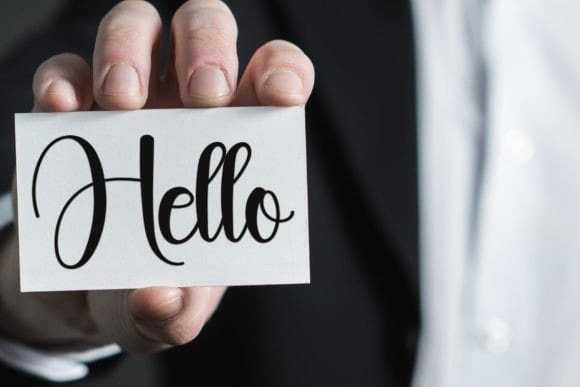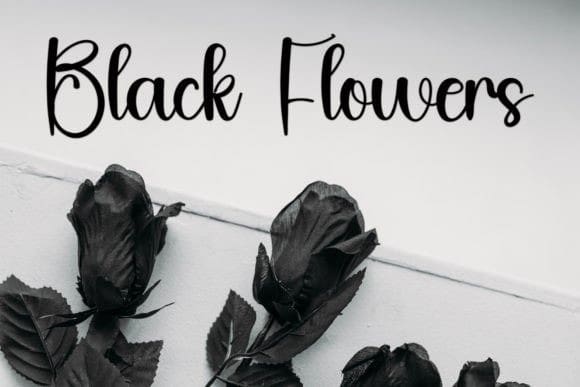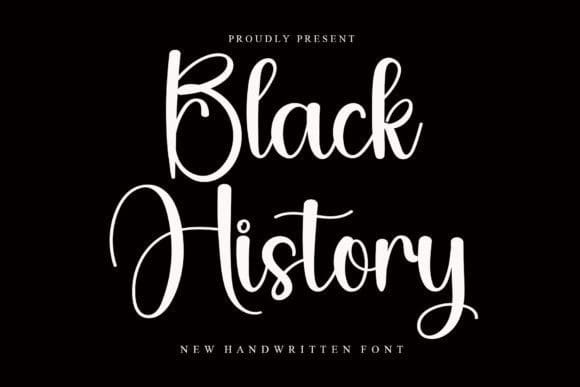
Black History Font
Black History Font is an enchanting handwritten font. This versatile typeface has a wide spectrum of applications ranging from greeting cards to headlines and is guaranteed to add a romantic feel to your next project.